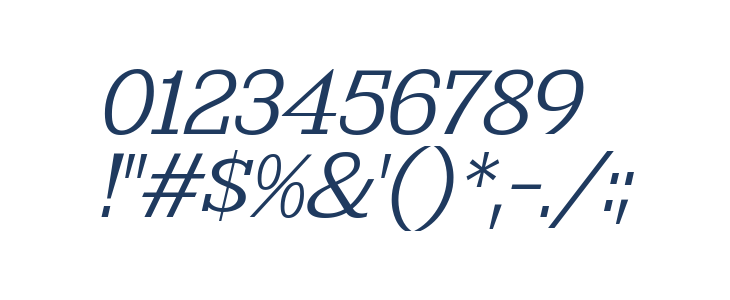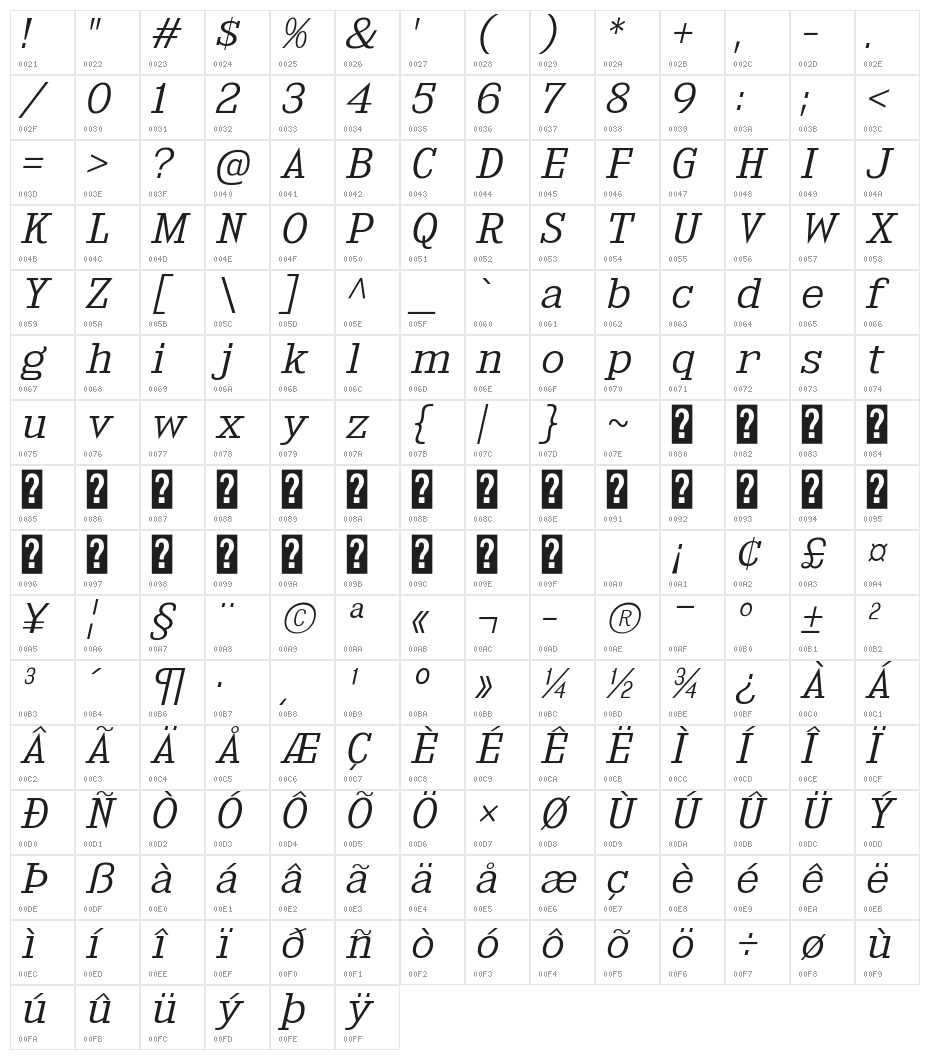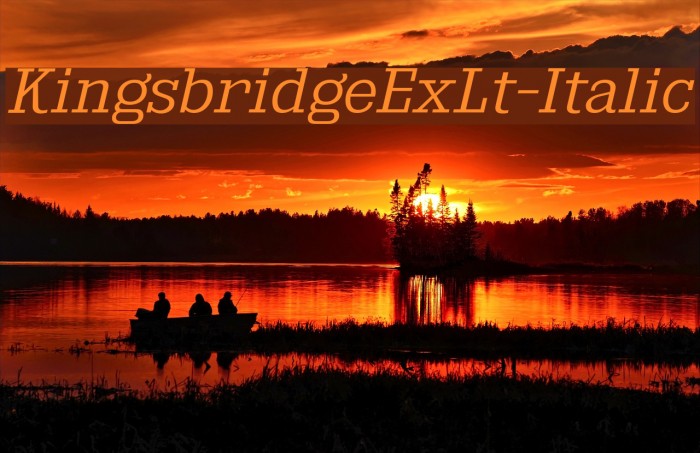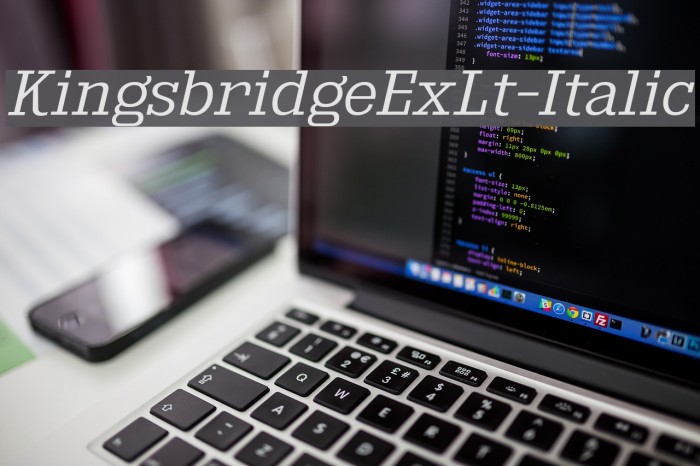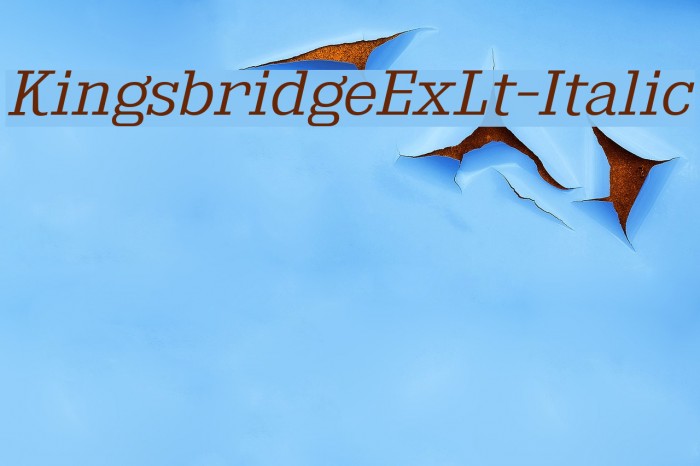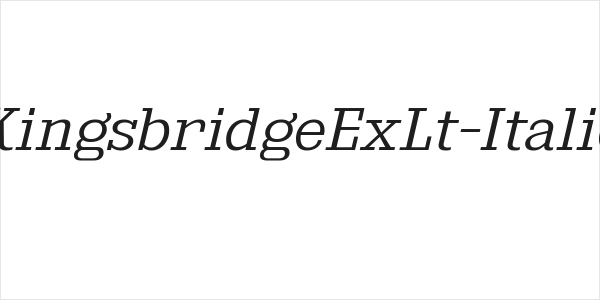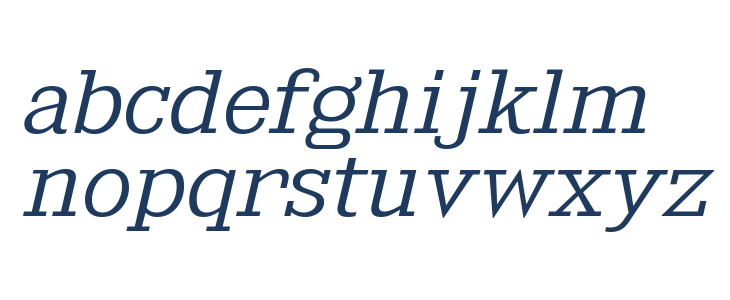
KingsbridgeExLt-Italic Font
KingsbridgeExLt-Italic Description
This font features a classic serif style with elegant, flowing lines and a slight slant, indicative of its italic nature. The characters are well-defined with moderate contrast between thick and thin strokes, giving it a refined and sophisticated appearance. The uppercase letters are tall and stately, while the lowercase letters maintain a consistent flow, enhancing readability. The numerals are clear and balanced, matching the overall aesthetic. Special characters are crafted with the same attention to detail, ensuring consistency across all glyphs.
Fonts by Typodermic Fonts
| Proposed Projects | Ideal for projects requiring a touch of sophistication, such as wedding invitations, formal event programs, or classic book covers. |